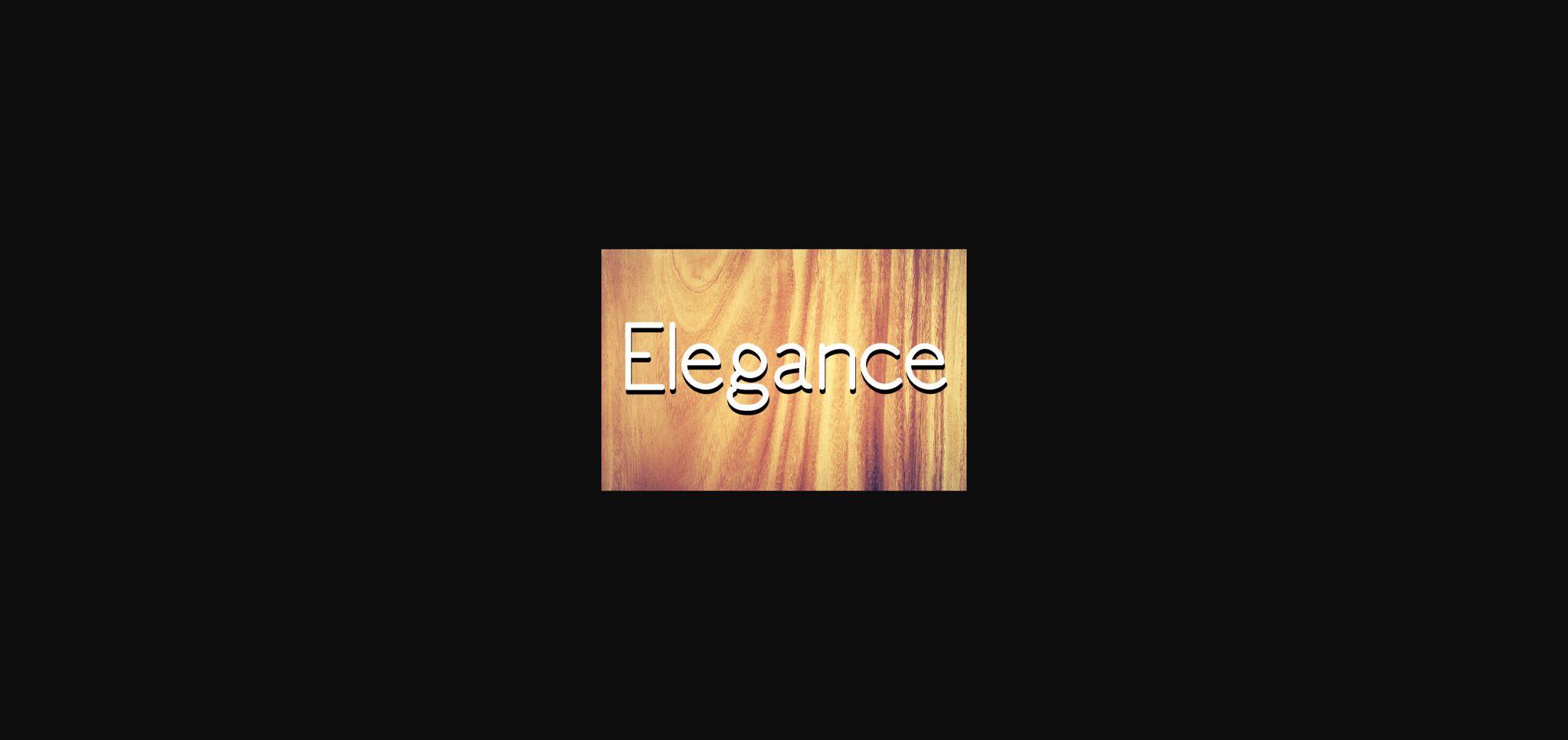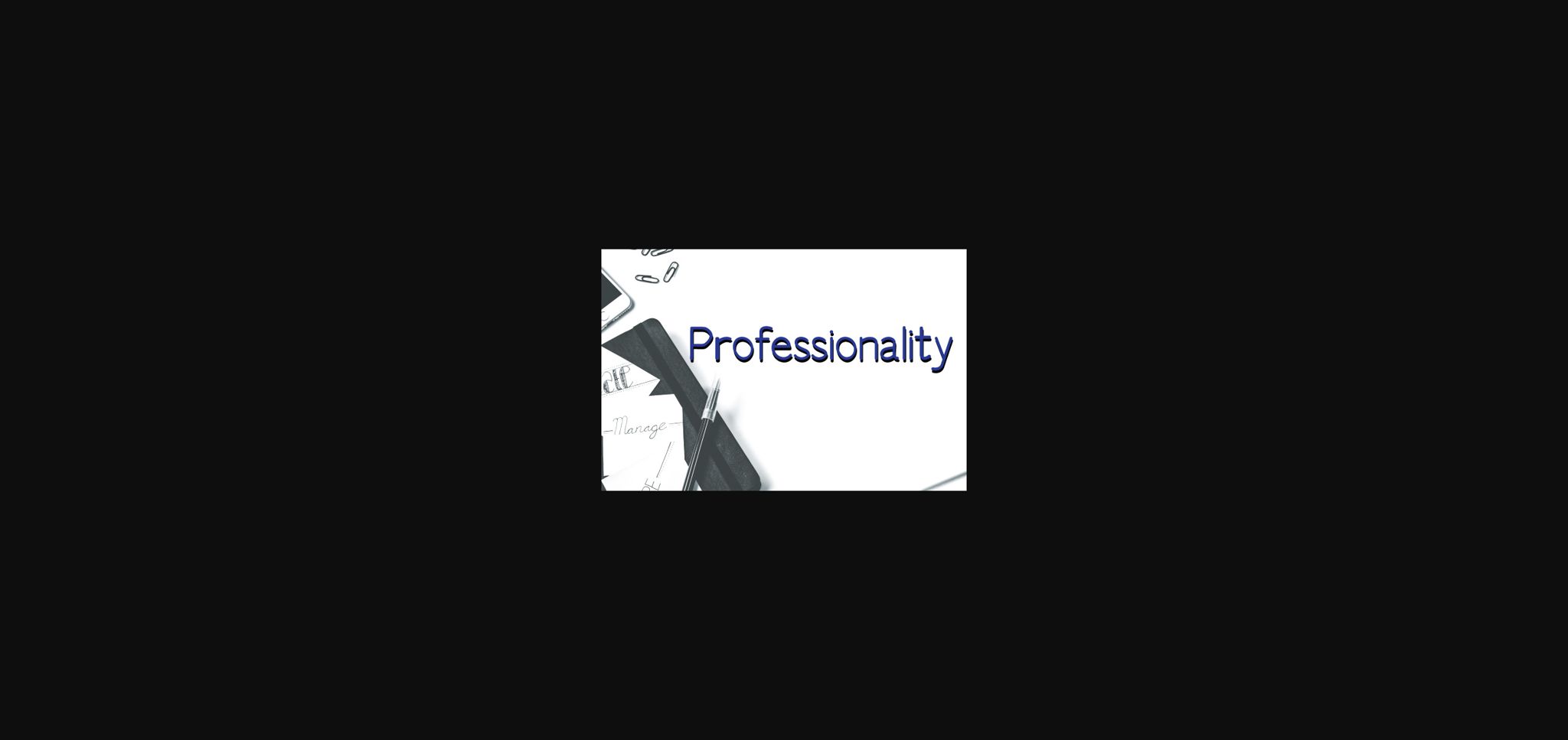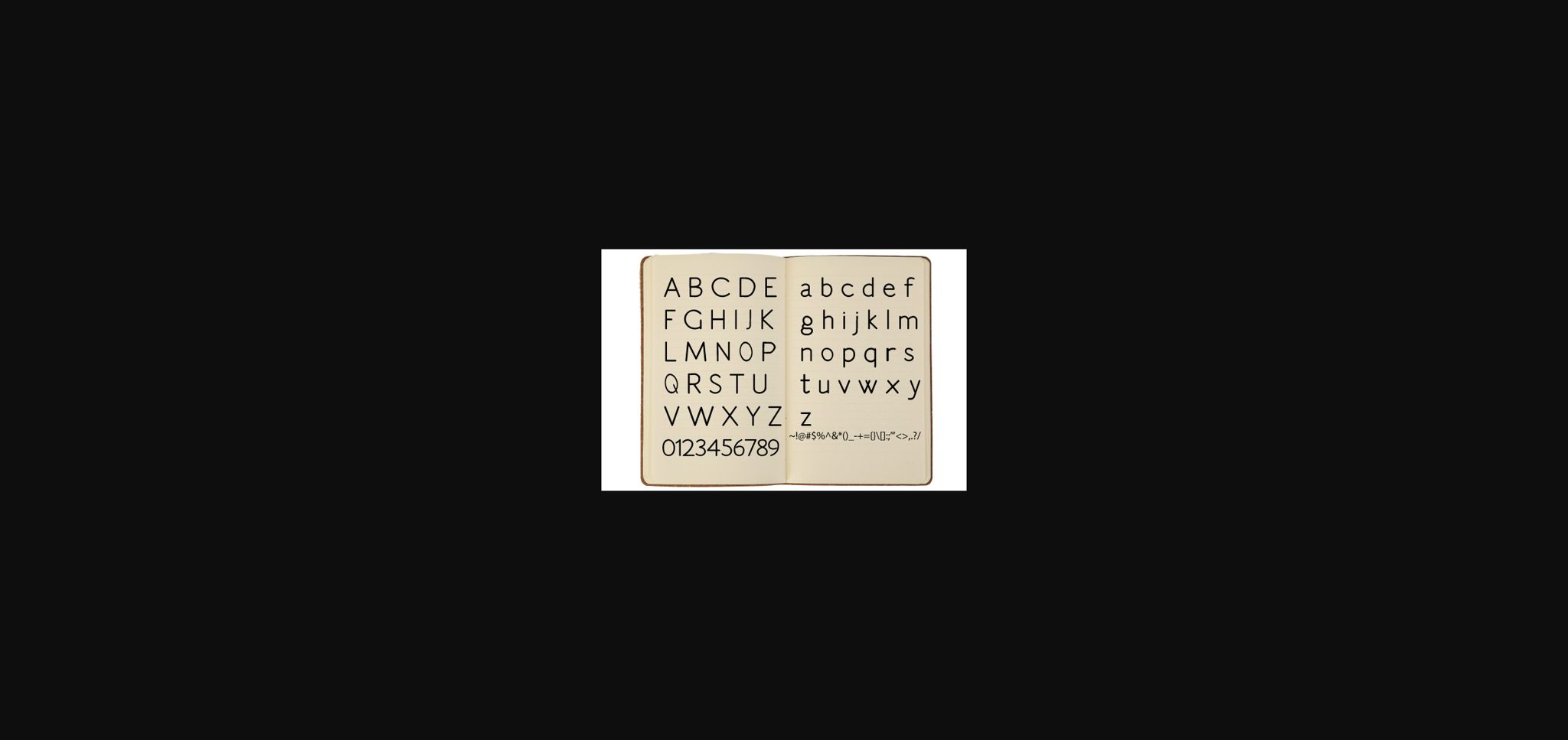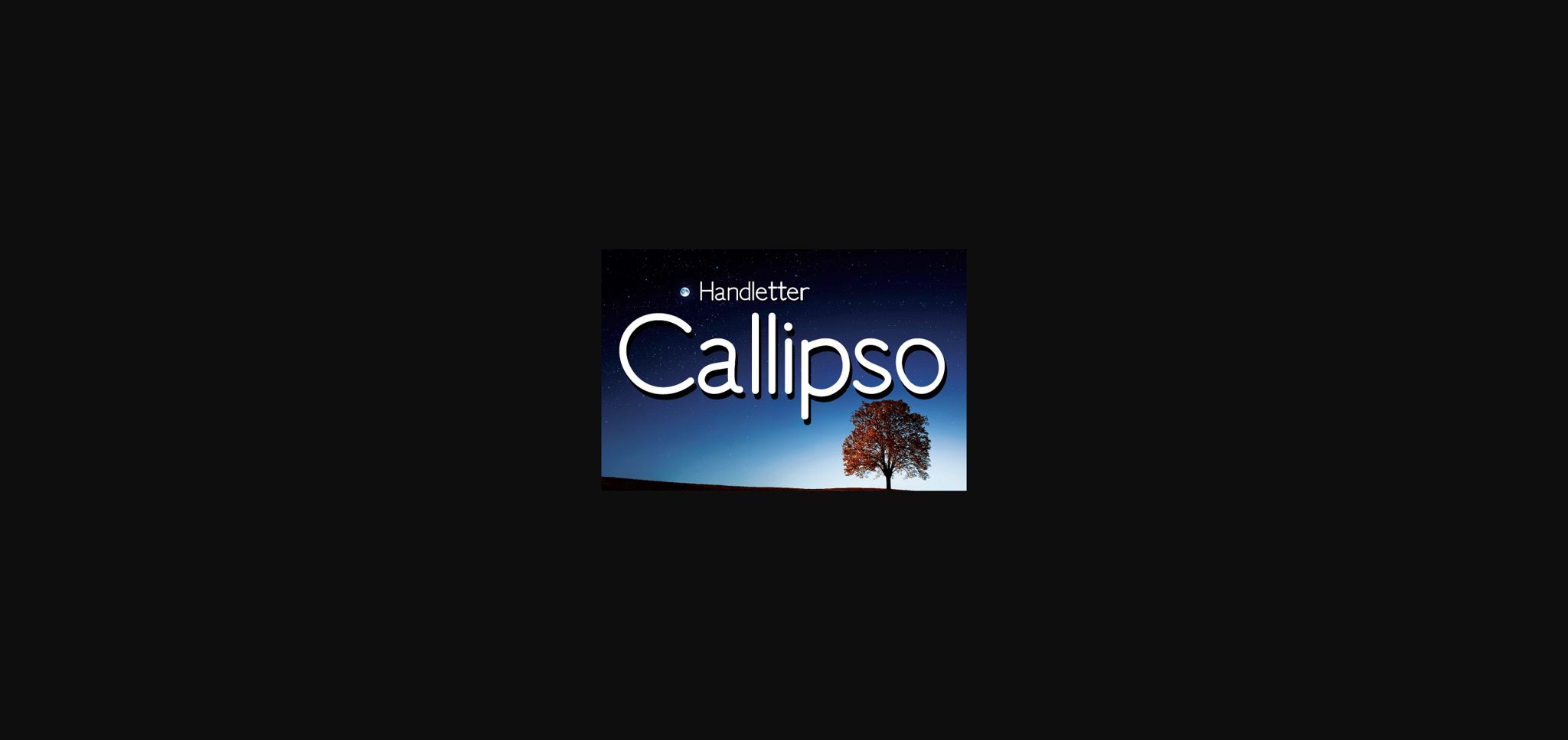
Callipso Font
About Callipso Font
Callipso Font is a casual and clean sans serif font. It is suitable for any branding, product packaging, invitation, quote, t-shirt, label, poster, logo that you wish to develop.